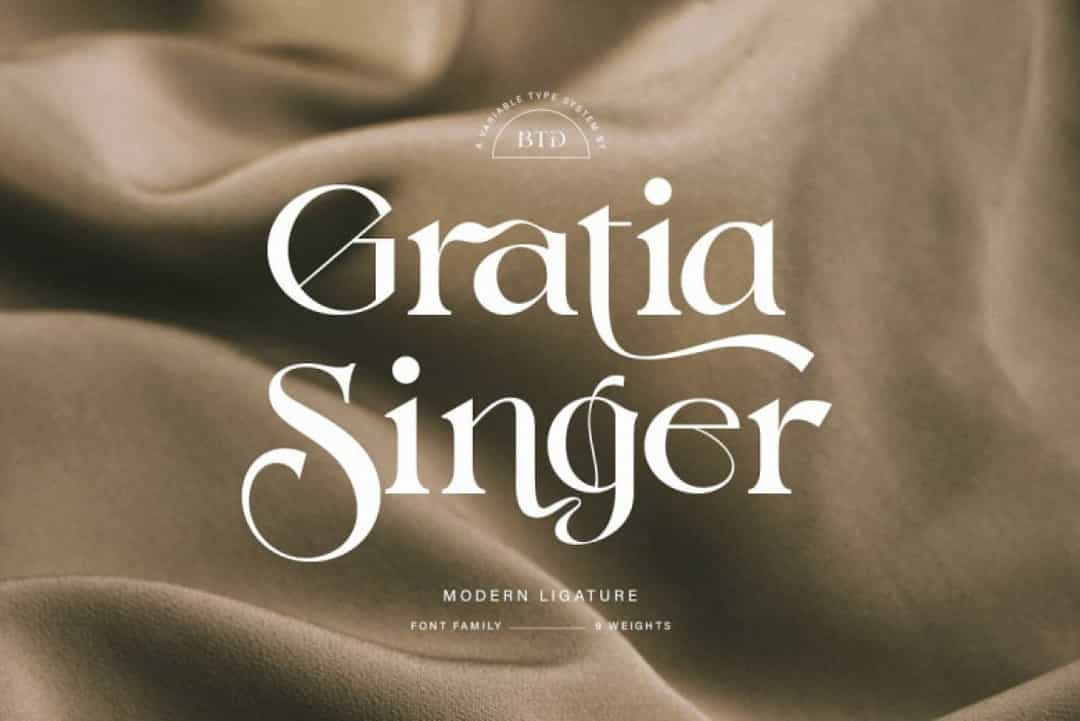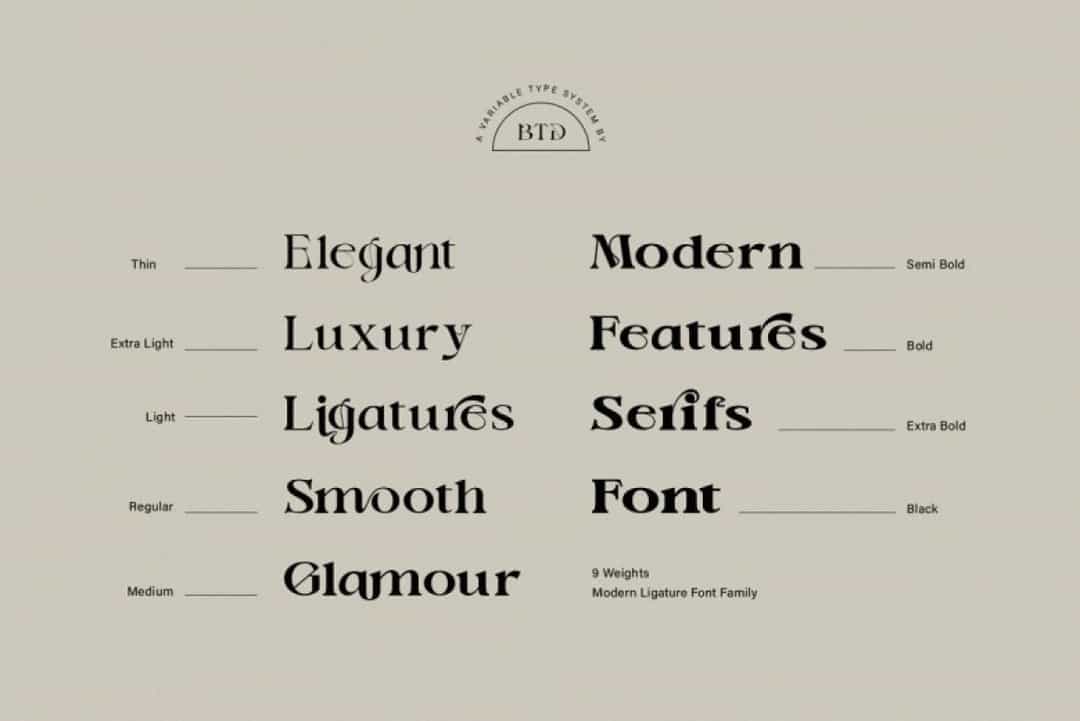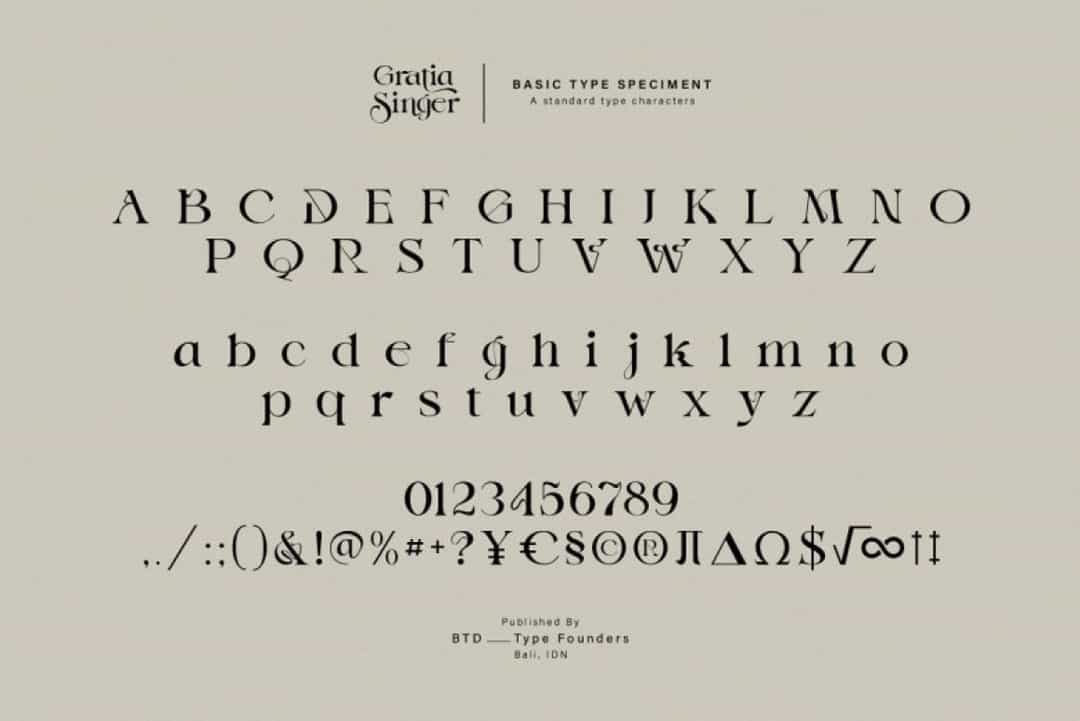
Gratia Singer can be described as an exquisite serif typeface with universal appeal that can enhance any project easily and minimally. It will enhance your design effortlessly while setting it apart from others’ works.